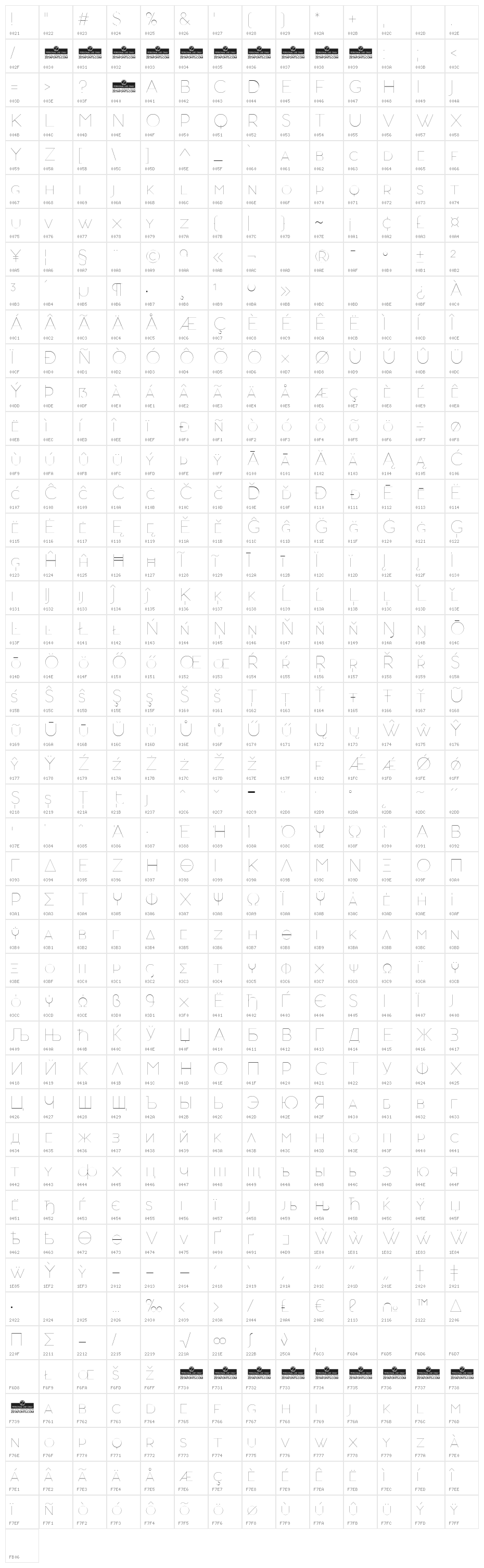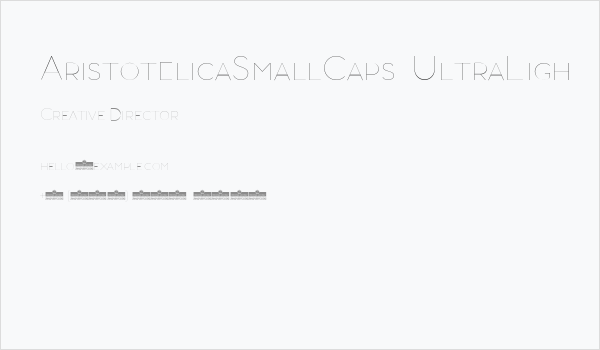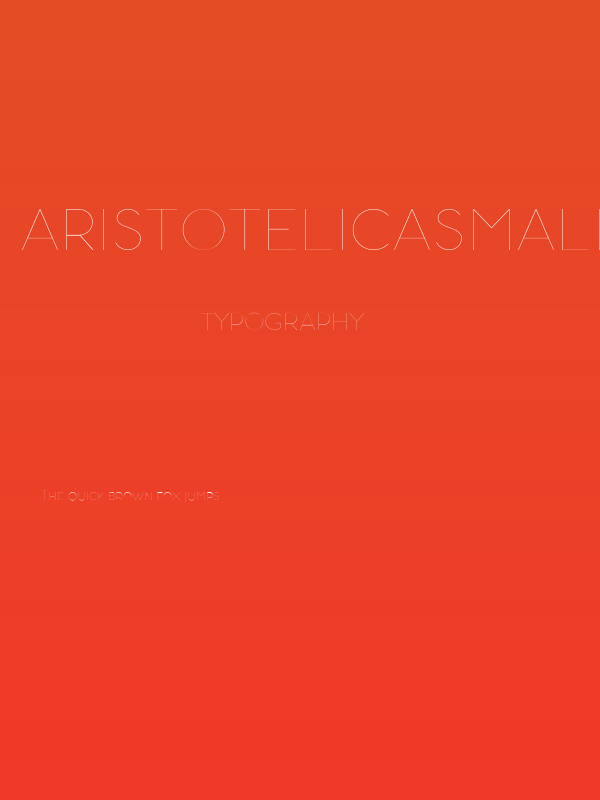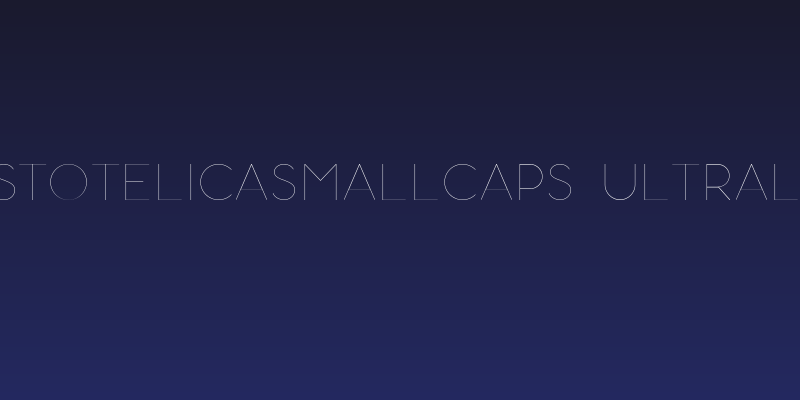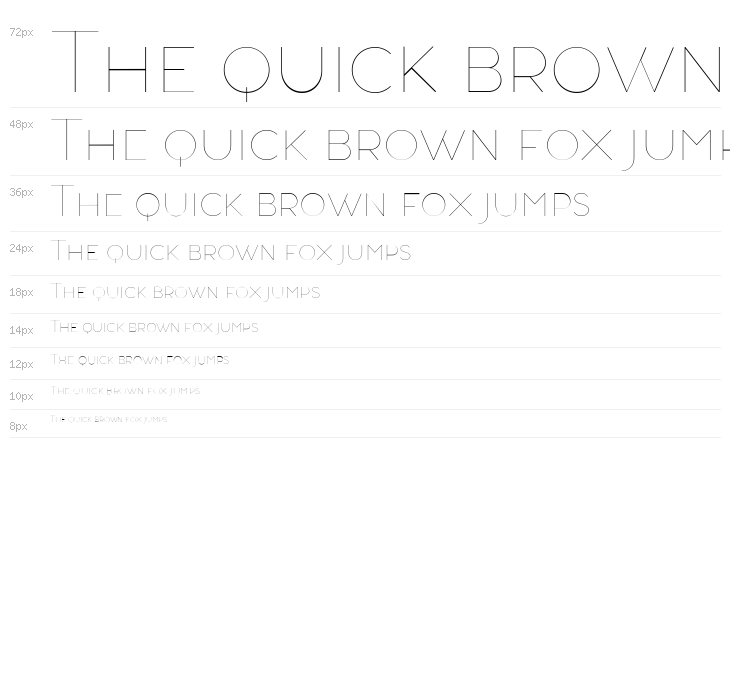
AristotelicaSmallCaps-UltraLigh Font
AristotelicaSmallCaps-UltraLigh Description
This font features a clean and minimalistic design with ultra-light strokes, giving it a modern and sophisticated appearance. The characters are evenly spaced, maintaining a harmonious balance across the typeface. The uppercase and lowercase letters share a consistent height, creating a uniform look. The font's geometric shapes and sharp angles contribute to its contemporary style, making it suitable for a variety of design applications. The special characters, including punctuation and symbols, are designed with the same attention to detail, ensuring they integrate seamlessly with the alphabetic characters. This font's simplicity and elegance make it an excellent choice for projects that require a refined and understated aesthetic.